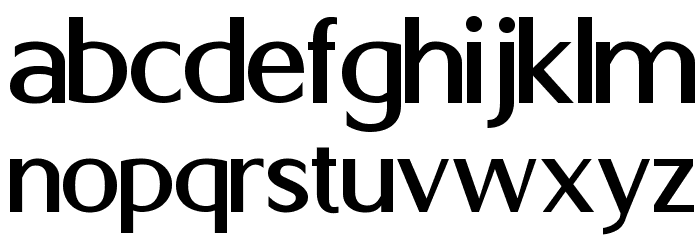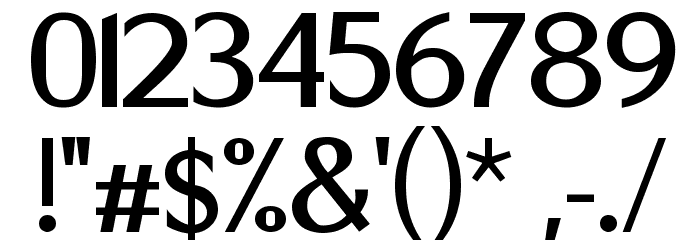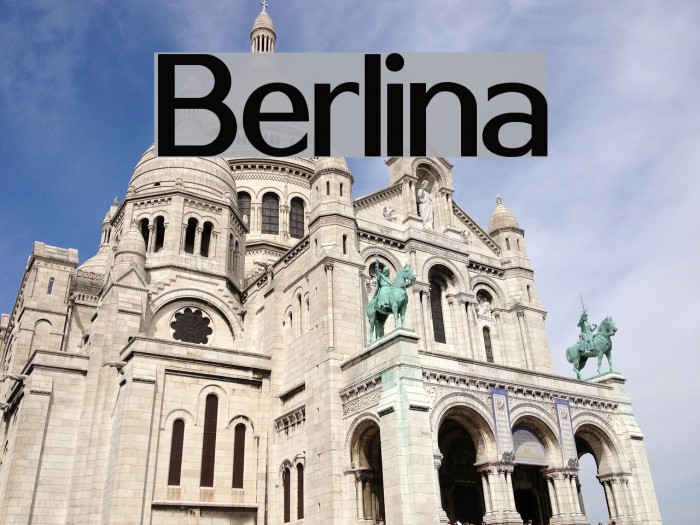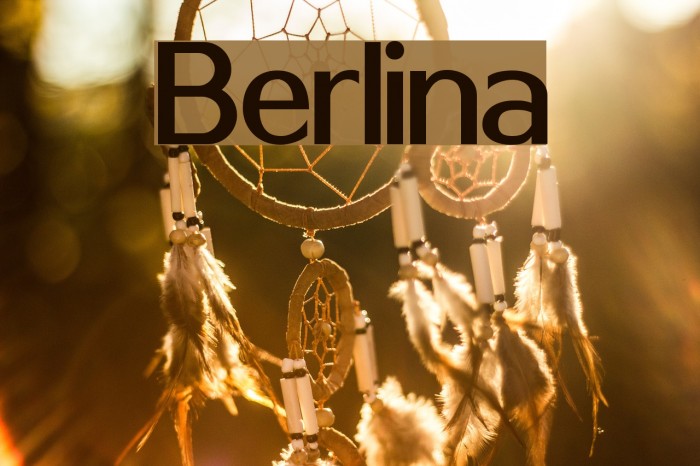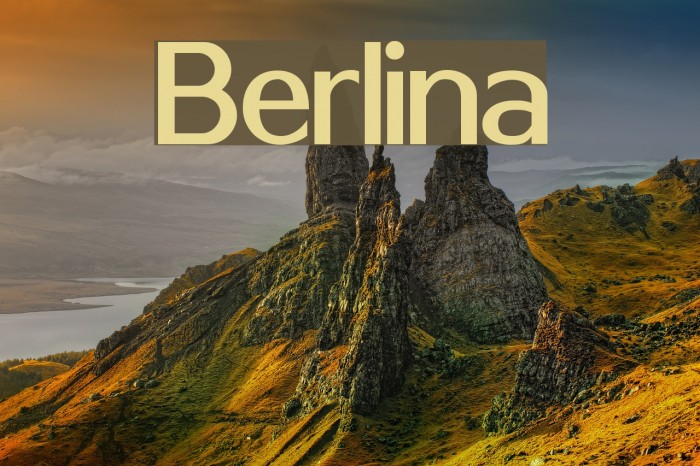
Berlina Font
This font features a clean and modern sans-serif design with a geometric structure. The characters are well-balanced, offering a harmonious appearance that is both professional and approachable. The uppercase letters are bold and assertive, while the lowercase letters maintain a friendly and open feel. The numerals are clear and easy to read, making them suitable for various applications. Special characters are designed with precision, ensuring consistency across the typeface. Overall, this font exudes a contemporary aesthetic that is versatile for multiple design contexts.
A modern, geometric sans-serif font with a clean and professional look.
- Proposed Projects: Ideal for corporate branding, web design, advertising, and editorial layouts.